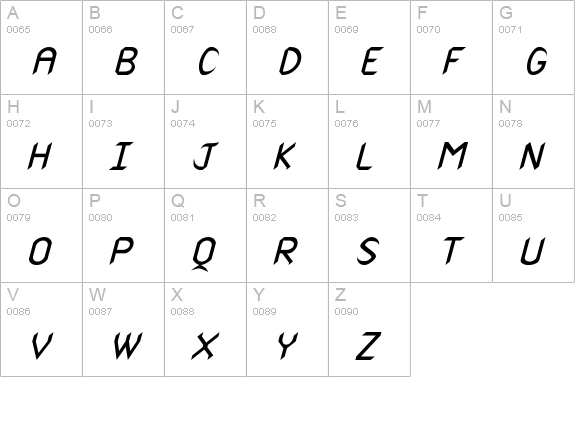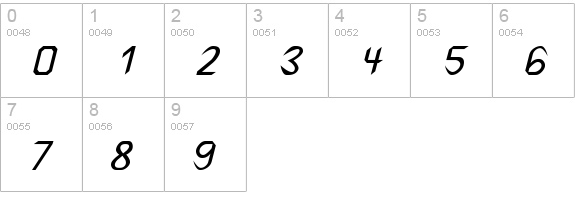
Rscanaith Italic Font Details
Rscanaith Italic is a distinctive, italic variant in the Rscanaith typeface family \xE2\x80\x94 well suited to design and typography projects.
Introducing Rscanaith Italic font – a sleek and modern typeface created for those seeking a sophisticated touch to their design projects. With its elegant slanted style and clean lines, Rscanaith Italic exudes a sense of refinement and professionalism. This versatile font is perfect for a wide range of applications, from branding and advertising to editorial design and web content. Its distinctive italicized form adds a touch of flair and elegance to any text, making it stand out without overpowering the overall design. And the best part? Rscanaith Italic font is available for free download at FontsMarket.com. Now you can elevate your projects with this premium font without breaking the bank. Don't miss out on the opportunity to enhance your designs with the timeless appeal of Rscanaith Italic font – download it today and see the difference it can make!